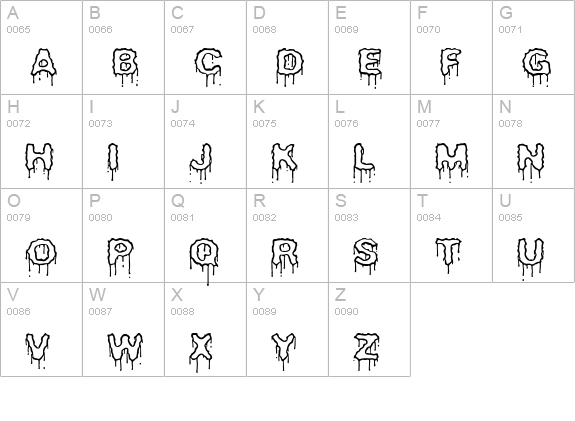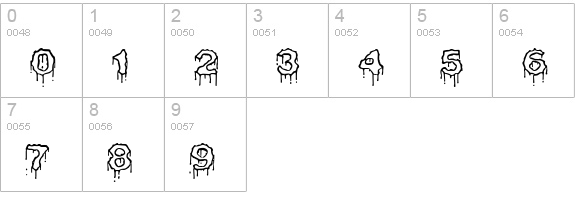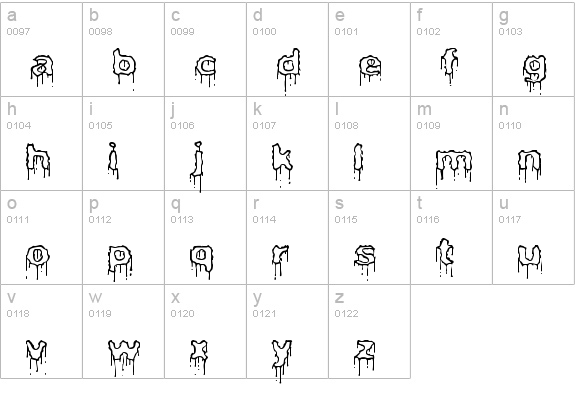
Plasma Drip [Empty] (BRK) font is a mesmerizingly unique typeface that will captivate and energize your designs. With its strikingly unconventional letterforms, this font is sure to make a bold statement in any project. The letters appear to be melting, dripping with an otherworldly plasma-like substance, creating a truly eye-catching effect. Whether you're designing a poster, logo, or website, Plasma Drip [Empty] (BRK) font will add a touch of intrigue and excitement to your visuals. Its unconventional and edgy style is perfect for projects that require a daring and avant-garde aesthetic. What's even better is that Plasma Drip [Empty] (BRK) font is available for free download at FontsMarket.com. This means that you can easily access and use this striking typeface without breaking the bank. It's a fantastic opportunity to add a unique and captivating element to your designs, completely free of charge. Don't miss out on the chance to unleash the power of Plasma Drip [Empty] (BRK) font in your creative projects. Download it now from FontsMarket.com and let its mesmerizing beauty take your designs to a whole new level of visual appeal.